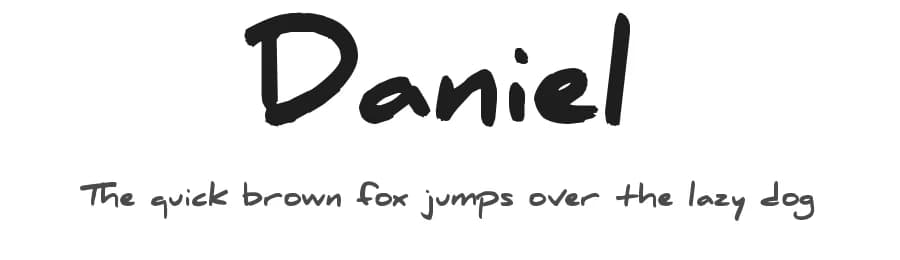
About Daniel Font
Daniel Font is a script font that shines as a display or heading face. Pair it with a clean sans-serif or serif font for body text β the contrast creates a clear hierarchy while the two styles stay balanced and easy to read.